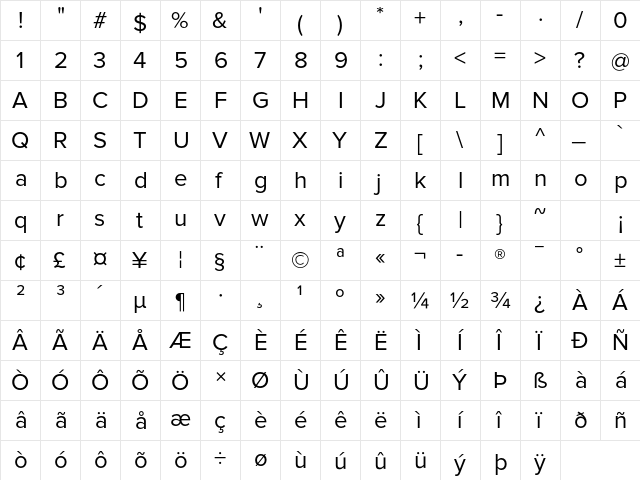
Proxima Nova Regular
| Designer | Mark Simonson |
Design Context for Proxima Nova Typeface
Proxima Nova takes a measured approach to typography — its balanced proportions and neutral character make it a reliable workhorse for both digital and print work.
Pro Tip: Use Proxima Nova in both headline and body roles to test its range before committing to a single application.